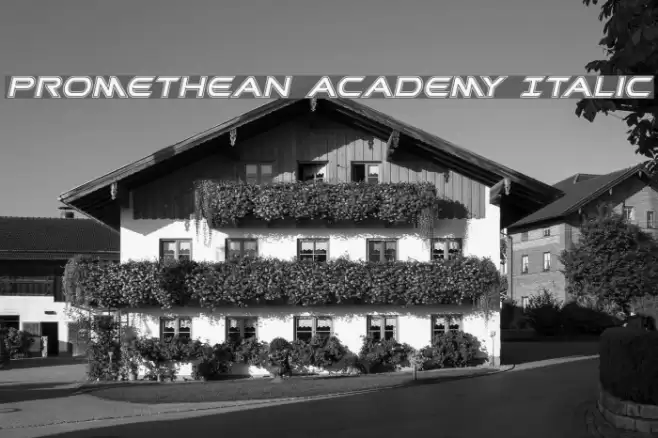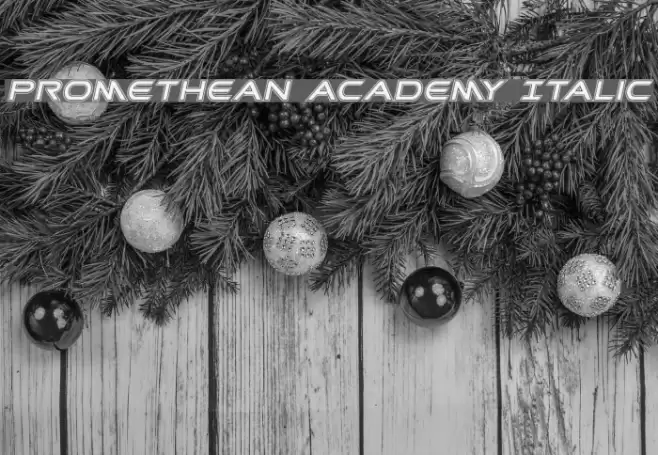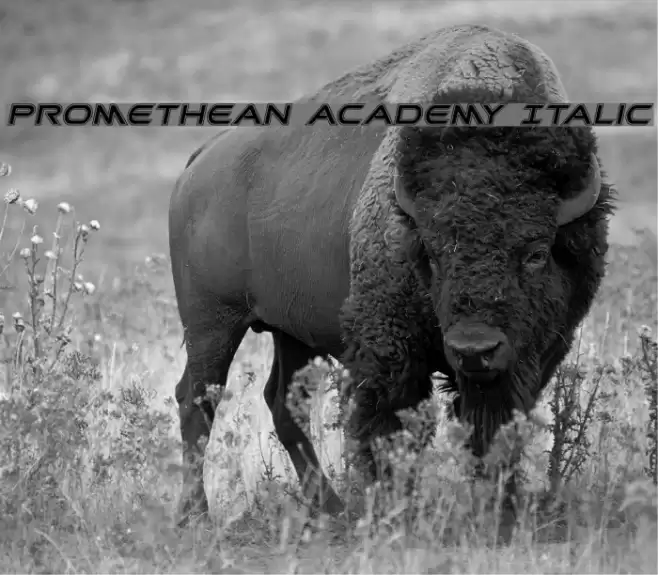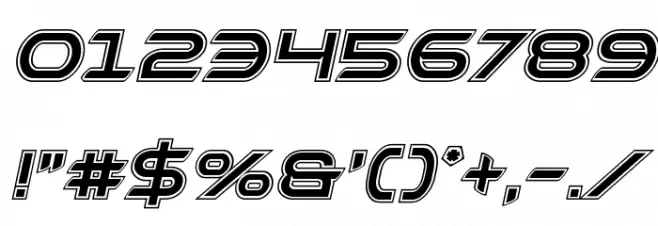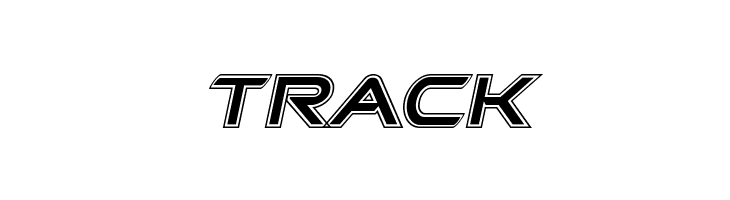
Promethean Academy Italic Font
Promethean Academy Italic Description
This font features a bold, italicized style with a futuristic and dynamic appearance. The characters are outlined with a double line, creating a sense of depth and movement. The angular and geometric shapes of the letters give it a modern and tech-inspired look. The uppercase and lowercase letters maintain a consistent style, with sharp edges and a slight slant to the right, enhancing the italic effect. The numerals and special characters follow the same design principles, ensuring uniformity across all glyphs. This font is ideal for projects that require a strong, impactful visual presence.
A bold, italicized font with a futuristic and dynamic style from Uncategorized fonts.
- Proposed Projects: Ideal for technology branding, sports team logos, video game titles, and sci-fi themed designs.